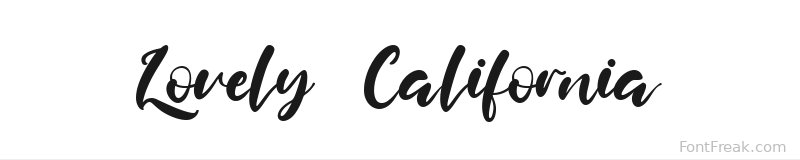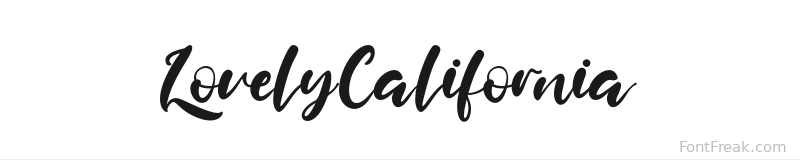
Lovely California
Lovely California, designed by Kong Font, is a captivating handwritten typeface that exudes charm and personality. This font showcases a fluid, cursive style with graceful strokes that evoke a sense of warmth and creativity. Its moderate stroke weight and gentle contrast make it visually appealing while maintaining legibility, making it suitable for various applications. The spacing between characters is well balanced, allowing for smooth readability, and the decorative elements enhance its playful character without overpowering the text.
This font is ideal for a variety of creative projects. It shines in wedding invitations, where its romantic flair adds an elegant touch to the special occasion. Additionally, Lovely California makes a fantastic choice for restaurant menus, helping to create a welcoming atmosphere that invites diners to explore the culinary delights on offer. Graphic designers can utilize this typeface for branding projects, especially for lifestyle brands that aim to convey a relaxed, California vibe. Furthermore, it is perfect for social media graphics, where its unique style can help content creators stand out in a crowded digital space.
The target audience for Lovely California includes graphic designers, small business owners, and content creators looking to infuse personality into their projects. Its free license allows for easy integration into various design endeavors, making it accessible for anyone seeking to enhance their visual communication.
What sets Lovely California apart is its perfect blend of elegance and playfulness, making it a versatile choice for those who appreciate a personal touch in their typography. The Lovely California font free download offers an opportunity to elevate your designs and connect with your audience in a meaningful way.